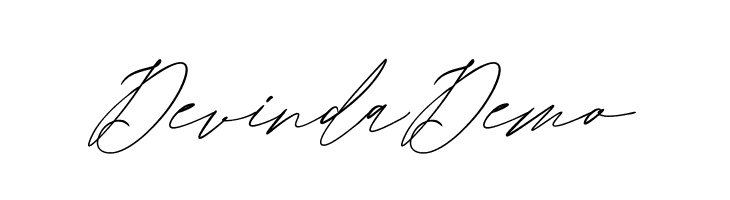
A flowing, cursive script font with an elegant and artistic style.
A bold, expressive script font with a playful and dynamic style.
A bold, playful font with a Western-inspired, handcrafted look.
A playful, decorative font with characters encased in heart shapes topped with bears.
A bold, geometric font with a three-dimensional layered effect.
A bold, playful font with thick strokes and rounded edges.
A fluid, cursive script font with elegant, connected strokes.
A bold, 3D italic font with a futuristic and dynamic style.
A bold, geometric font with a filled, block-like design and three-dimensional effect.
A bold, italicized font with sharp angles and a dynamic slant.